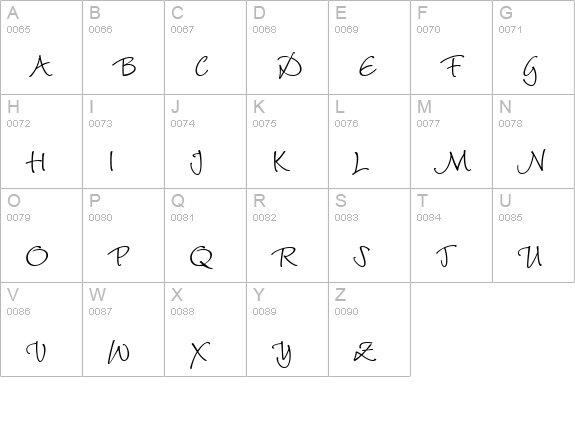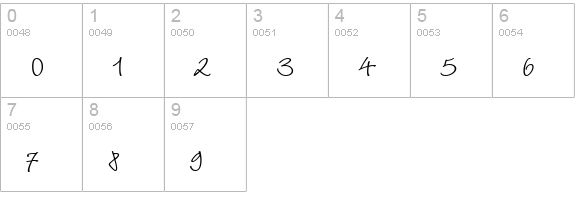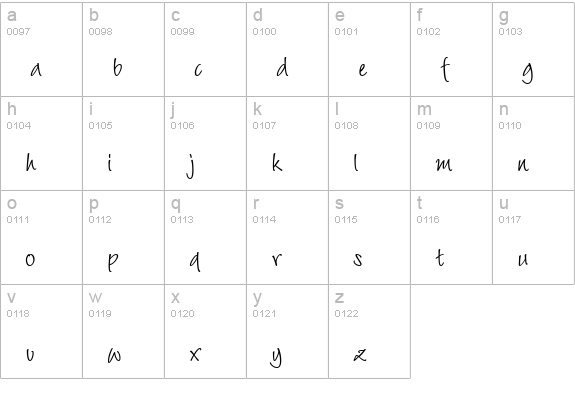
Barbara Hand Font Details
Barbara Hand font is a beautifully crafted typeface that exudes elegance and sophistication. With its delicate curves and stylish letterforms, this font is perfect for adding a touch of class to any design project. Whether you're working on invitations, branding, or editorial projects, Barbara Hand font is sure to make a lasting impression. The best part? Barbara Hand font is completely free to download at FontsMarket.com. That's right, you can elevate your designs without breaking the bank. So why wait? Download Barbara Hand font today and let your creativity soar!